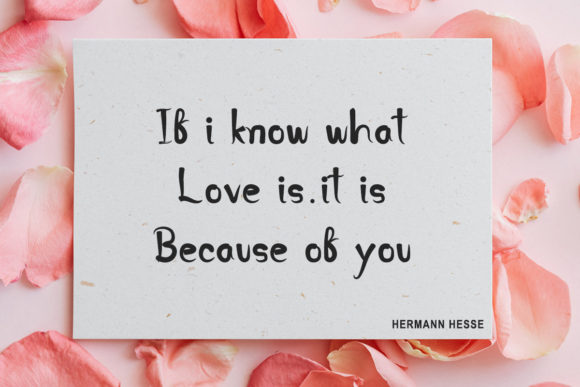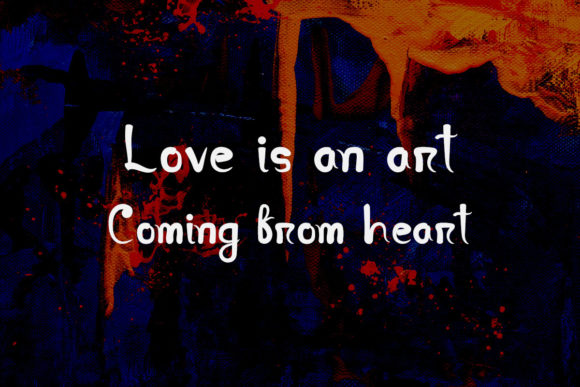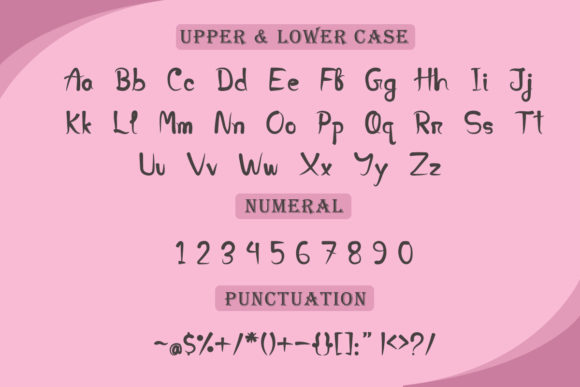
About Artist Font
Artist is a cool, adaptable, and fun-looking color font that offers endless creative possibilities. Whether you’re working on cartoon-related designs, children’s games, or any creation that requires a lovely touch, this font is an amazing choice.
With its playful and whimsical appearance, Artist adds a delightful charm to your typography. Each letter is infused with vibrant colors and captivating details, bringing your designs to life and captivating the imagination of your audience.
This font is versatile and well-suited for a variety of projects. Whether you’re creating logos, posters, invitations, or digital artwork, Artist injects a sense of joy and creativity into your designs. It’s perfect for capturing the attention of both children and adults alike.
Embrace the versatility and fun of Artist and watch as it transforms your creations into visually captivating masterpieces. Let your imagination run wild and explore the countless possibilities that this font offers. With Artist, you have the power to add a lovely touch to any project and create a memorable visual experience.